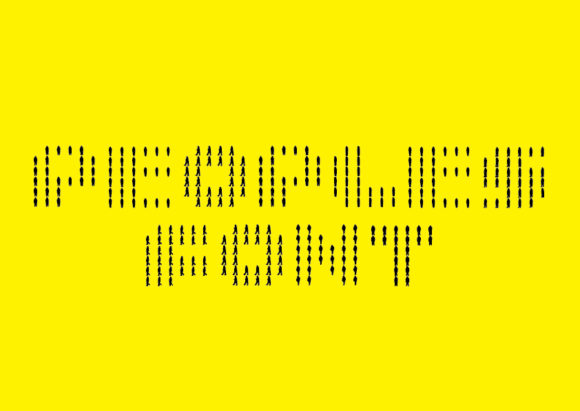
Peoples Font
Behold, the awe-inspiring Peoples Font – a visual symphony where human forms dance across your digital canvas, harmonizing design and imagination. Created by the visionary GraphicsBam Fonts, this font family is an artistic masterpiece that blends typography with the essence of humanity, propelling your creative expressions to new heights.
Immerse yourself in a world where letters transform into people, embodying the spirit of connection and diversity. Each character, meticulously crafted with artistic flair, encapsulates the essence of human emotion and expression, breathing life into your digital creations. As you type, you'll witness a captivating spectacle unfold before your eyes, where words morph into a tapestry of human forms, captivating your audience with a visual feast like no other.
Peoples Font transcends the boundaries of ordinary fonts, becoming a captivating storytelling tool that allows you to convey messages with unparalleled impact. Whether you're a seasoned designer, a budding artist, or simply someone who appreciates the beauty of typography, Peoples Font will ignite your imagination and unleash your creative potential.
With its bold and playful personality, Peoples Font is ideally suited for a wide range of design projects, from eye-catching headlines and captivating posters to mesmerizing social media graphics and vibrant website designs. Let your creativity flourish as you explore the boundless possibilities that this extraordinary font offers.
Elevate your designs to new heights with Peoples Font – a font that captivates, inspires, and weaves a narrative like no other. Embrace the fusion of art and typography, and let your words dance with the grace and elegance of human forms. Discover the limitless possibilities that await you with Peoples Font.